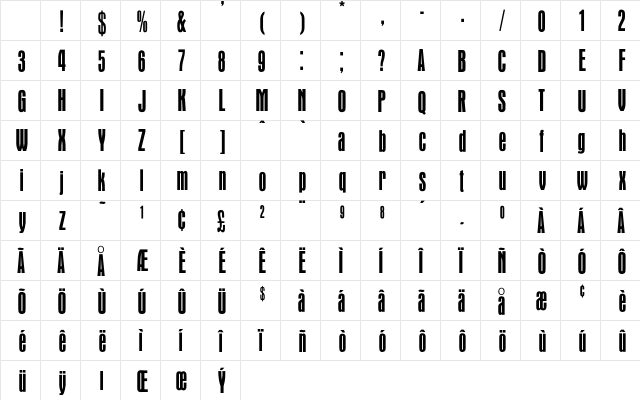
Complete OPTIAuroraGroteskEight Regular glyph index. Displaying only characters natively supported by OPTIAuroraGroteskEight Regular font.
OPTIAuroraGroteskEight takes a clean, functional approach - its unadorned letterforms prioritise legibility and work reliably across screen and print environments.
Font Pairing: Works well alongside a characterful serif or display font that can carry the expressive load while OPTIAuroraGroteskEight handles the functional copy.
Pro Tip: Use OPTIAuroraGroteskEight for UI labels, navigation, and short-form body copy where clean legibility is the priority.